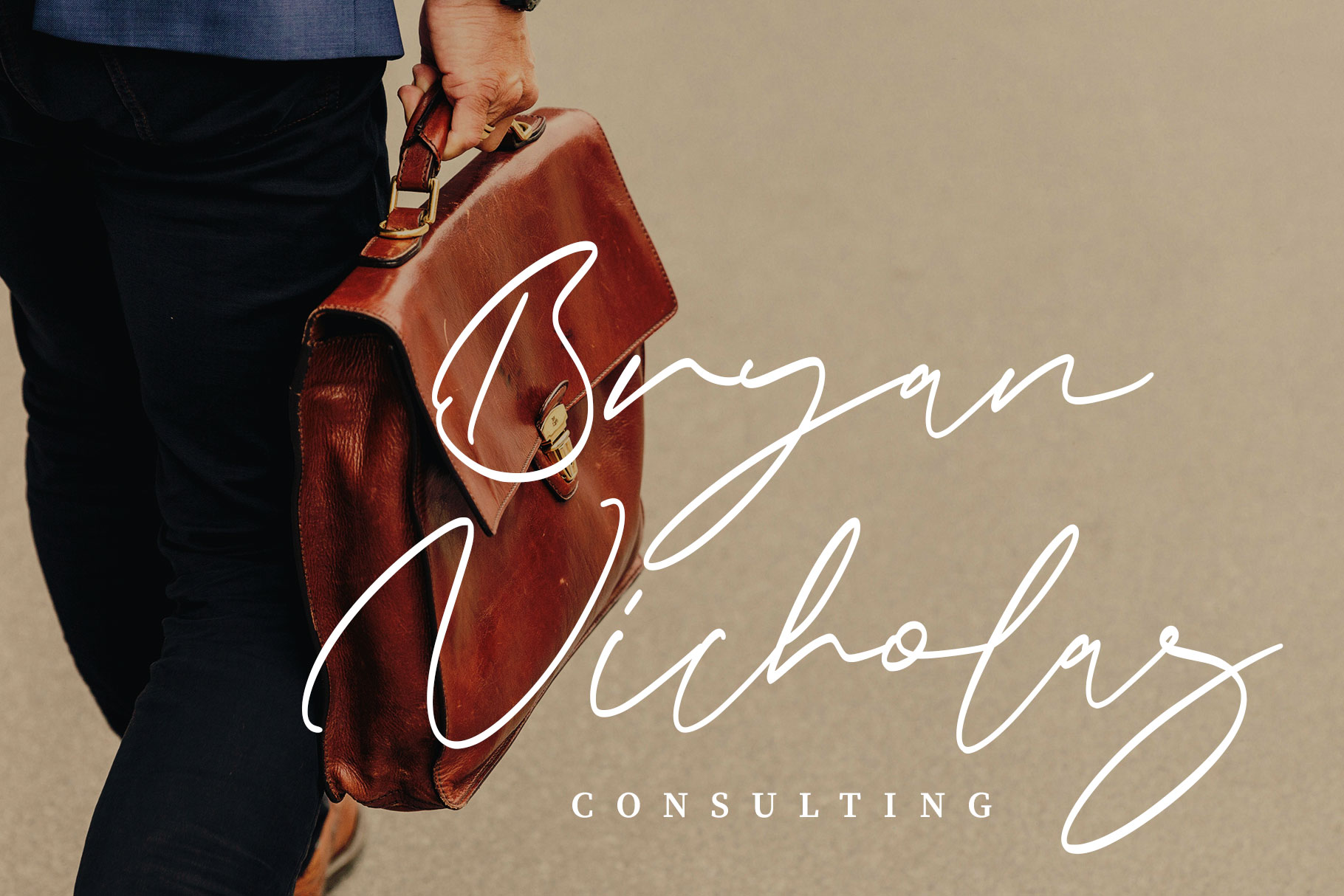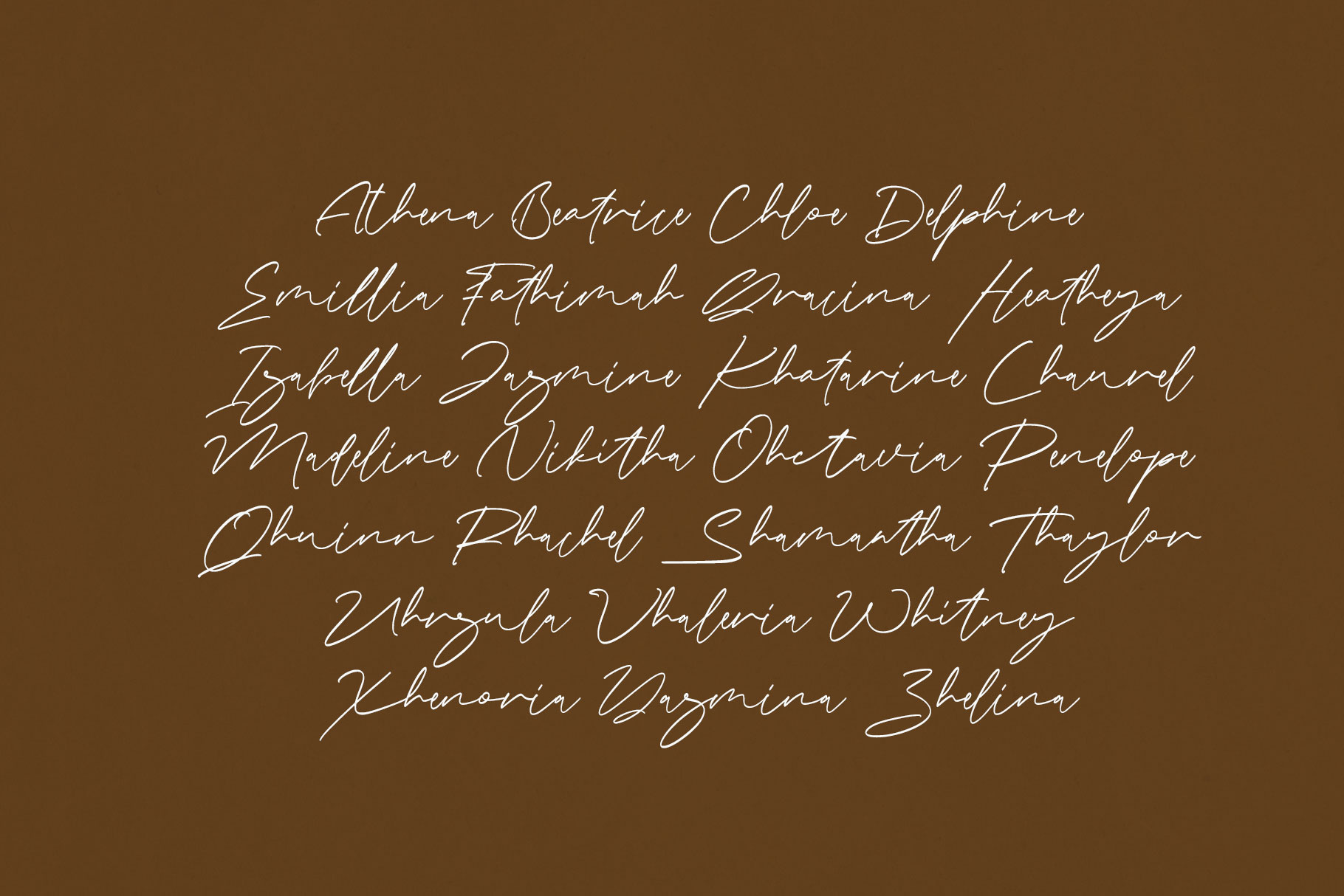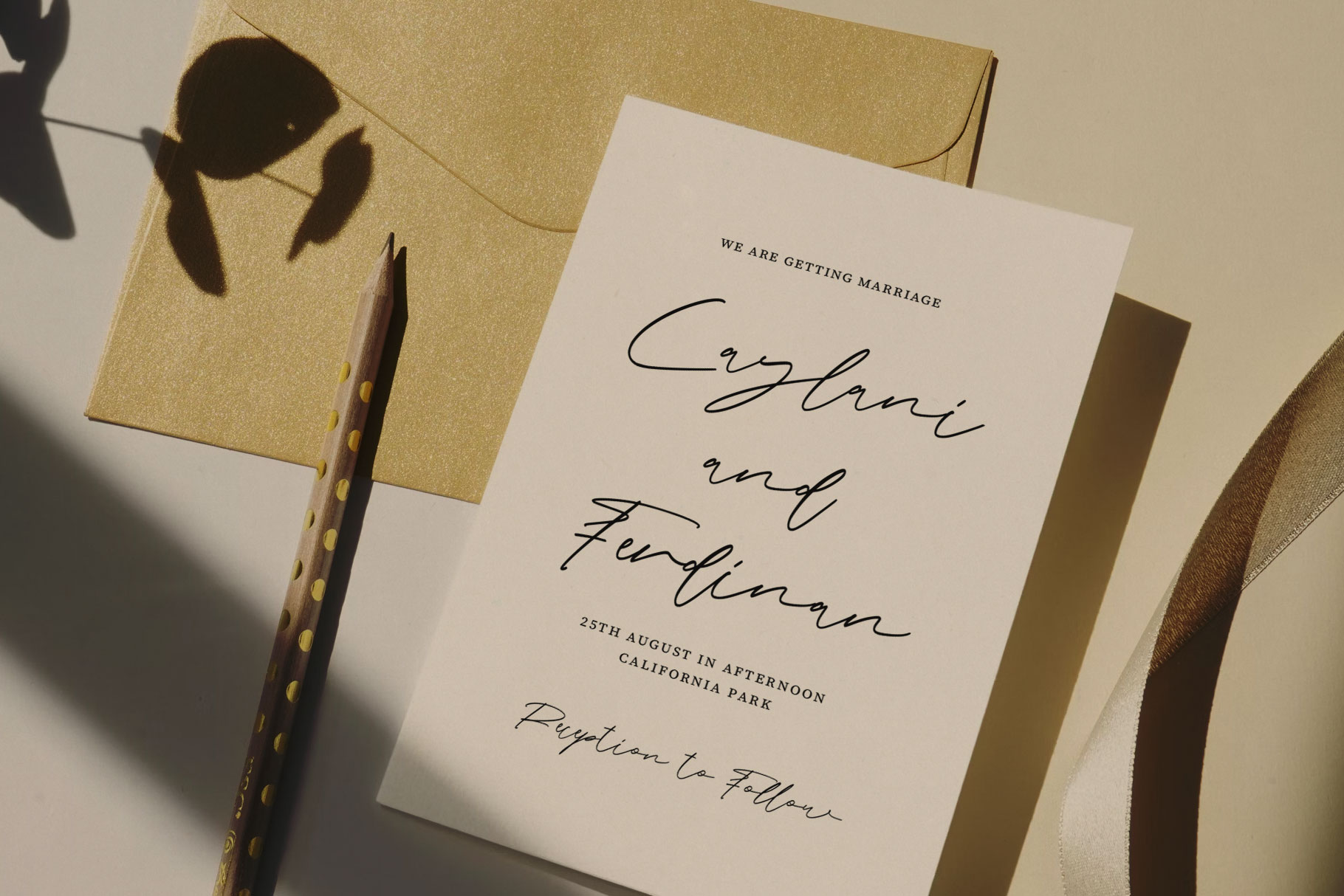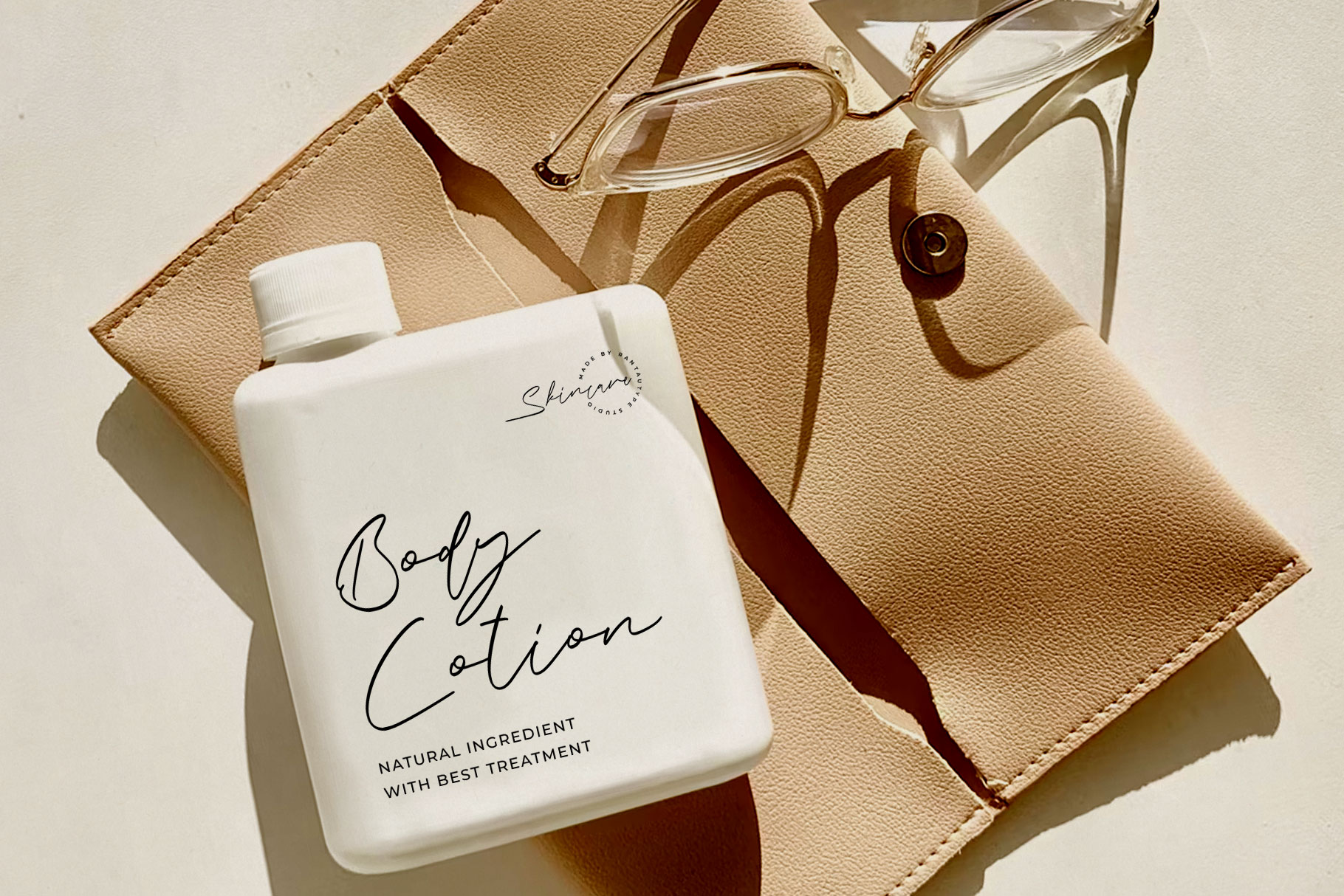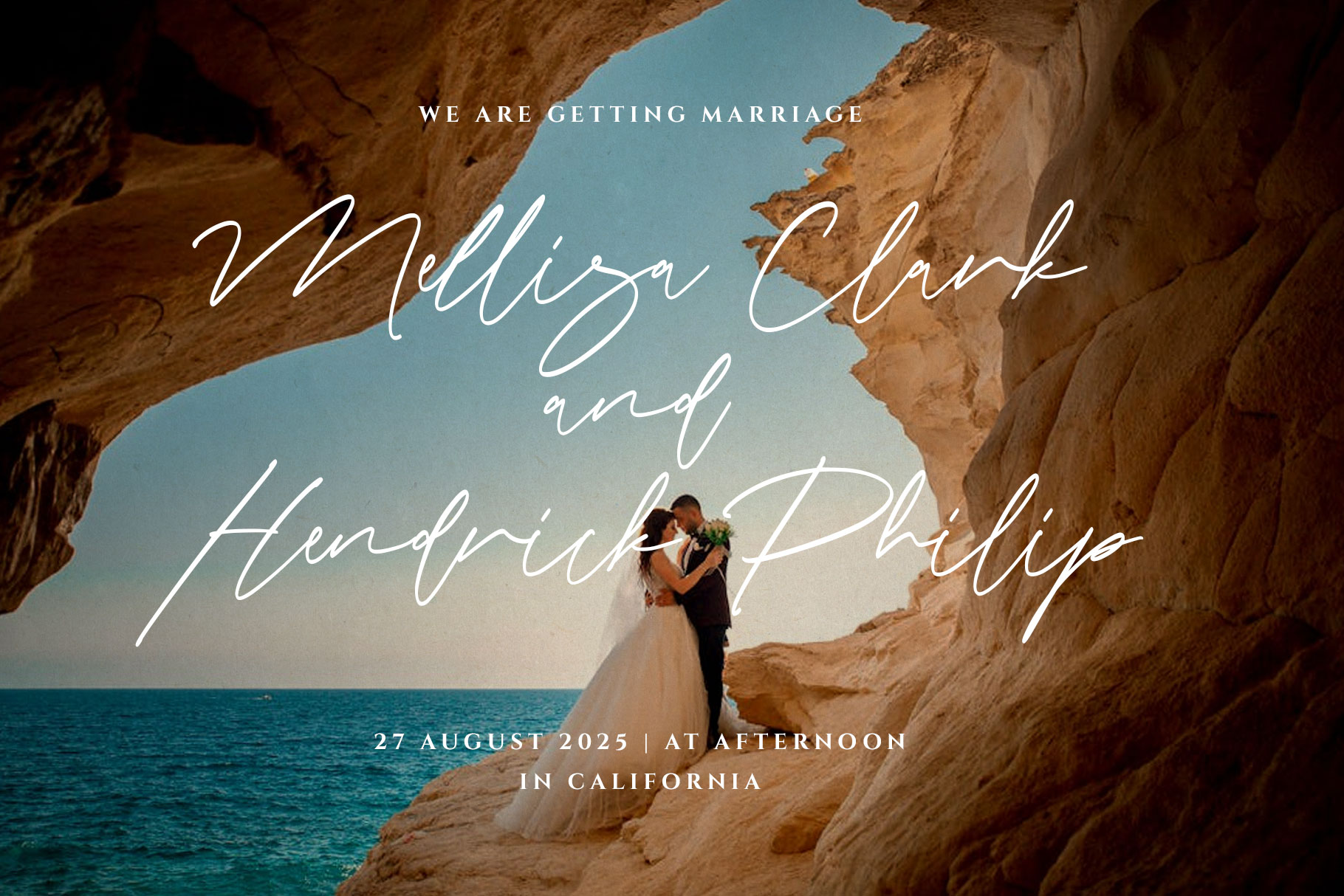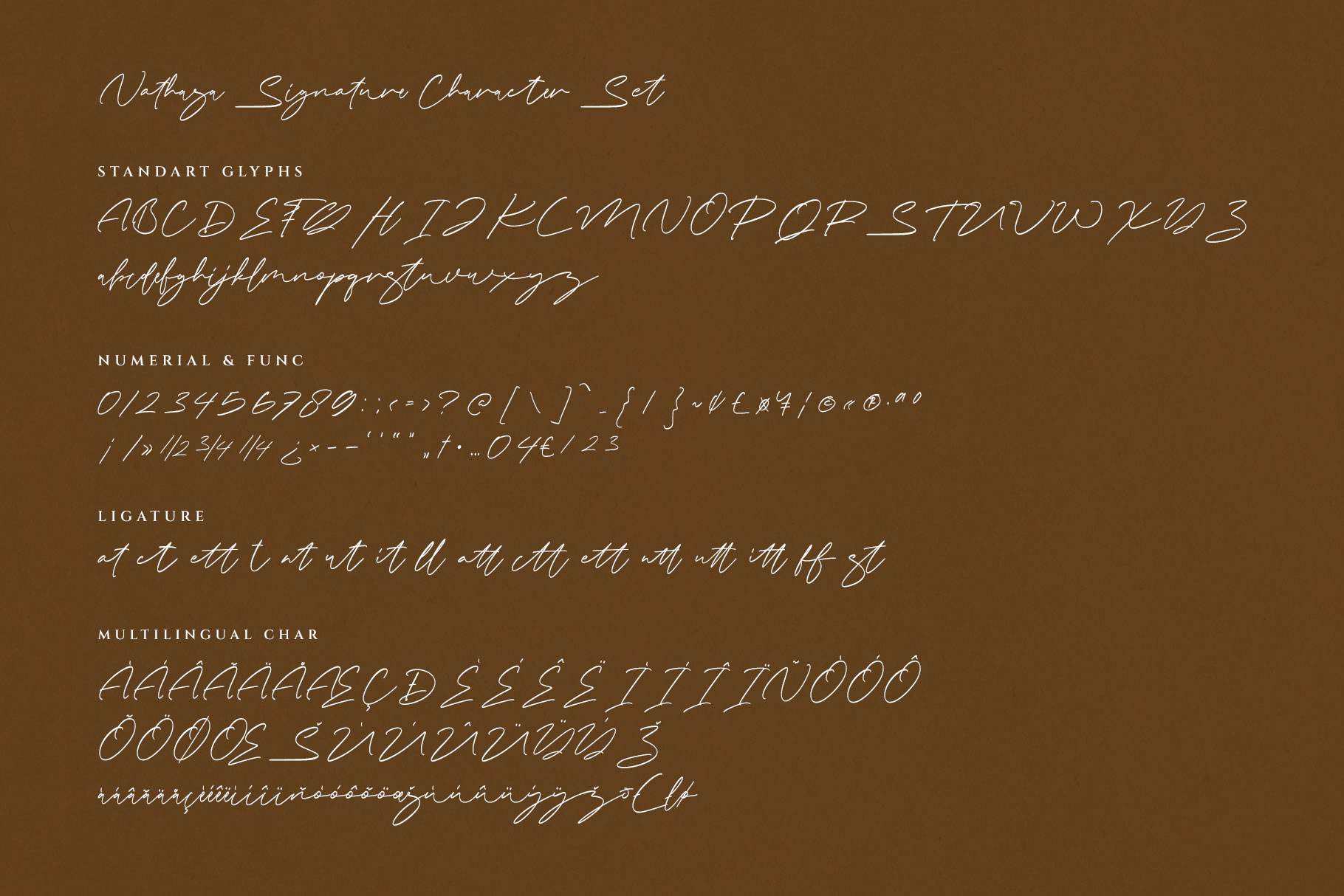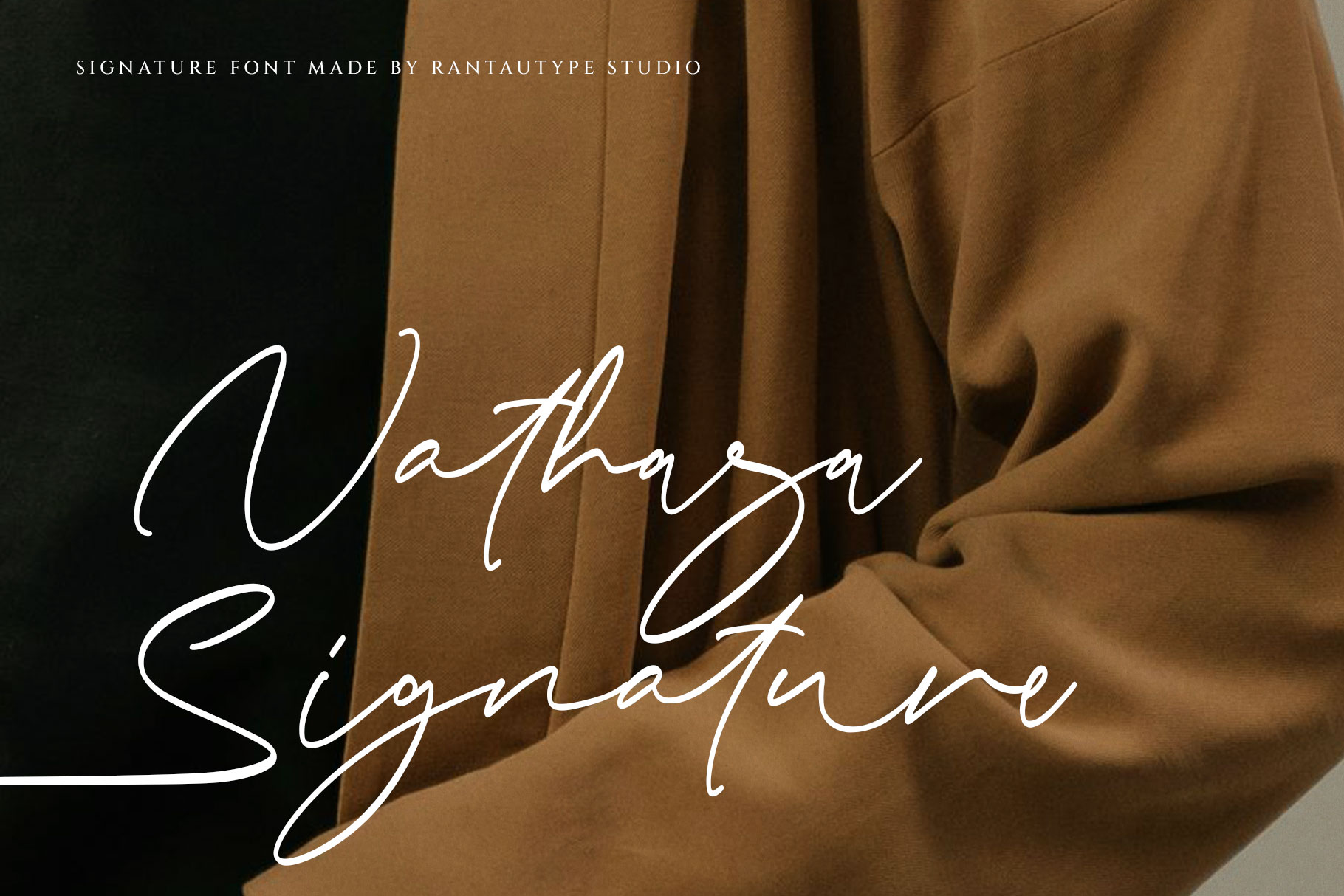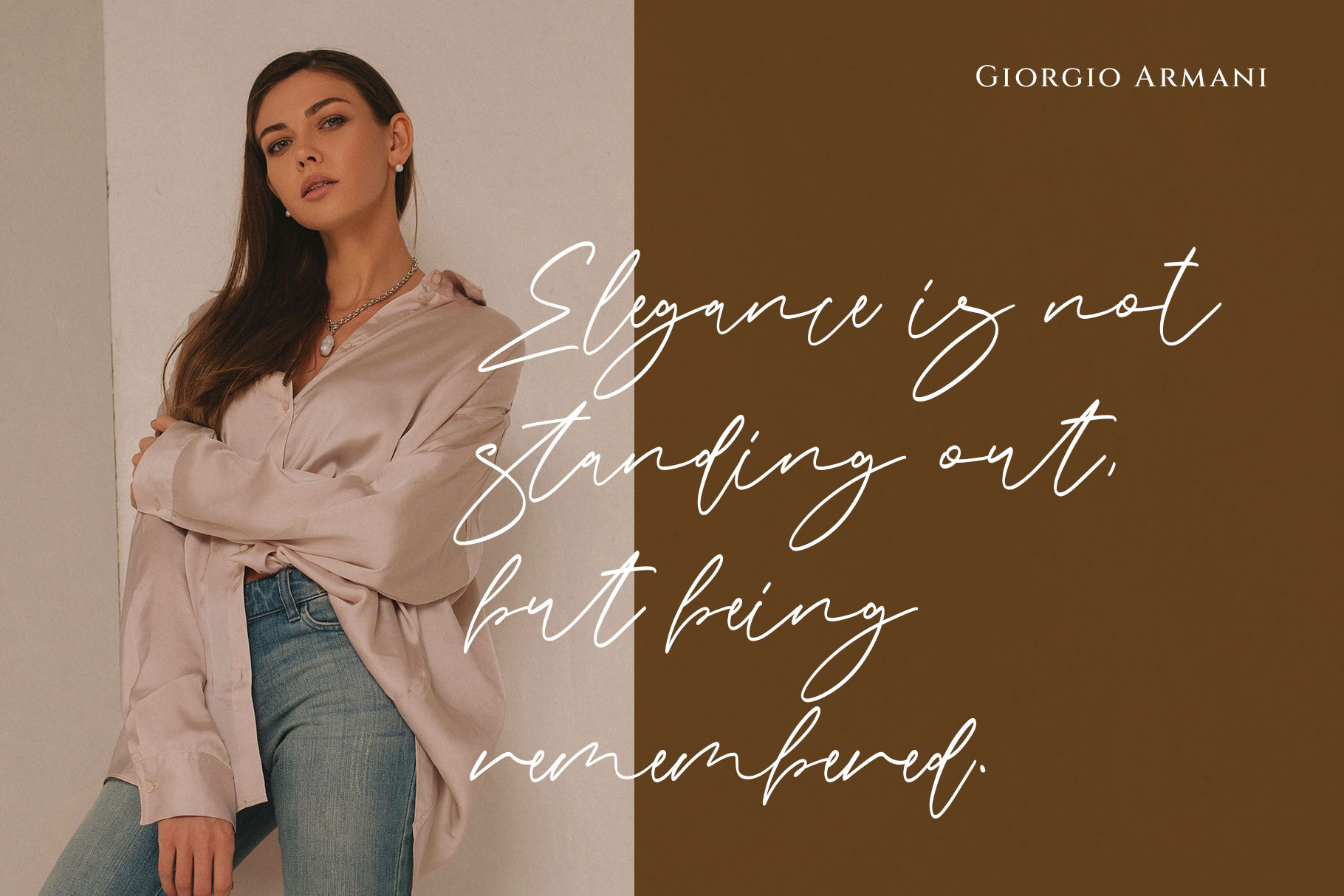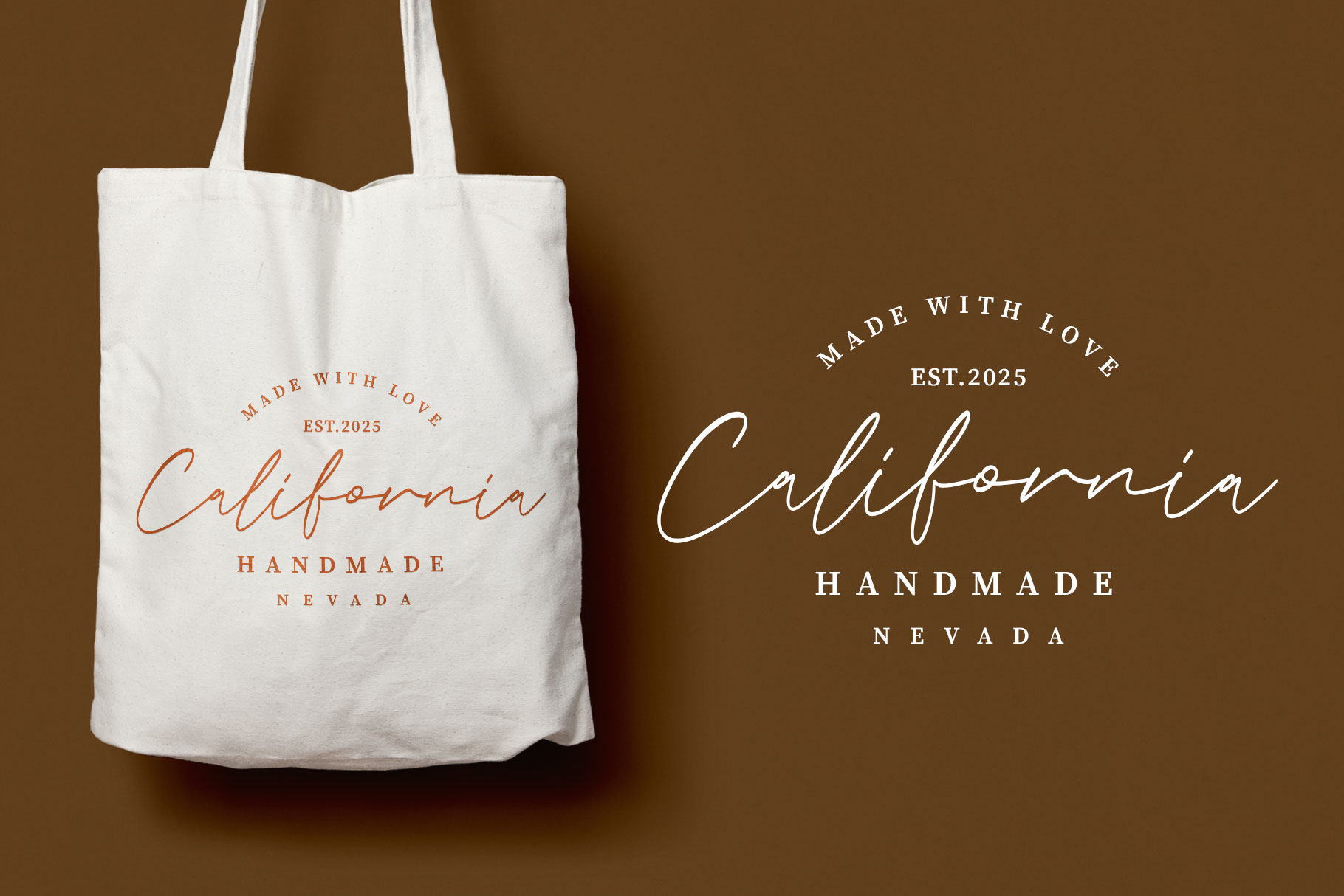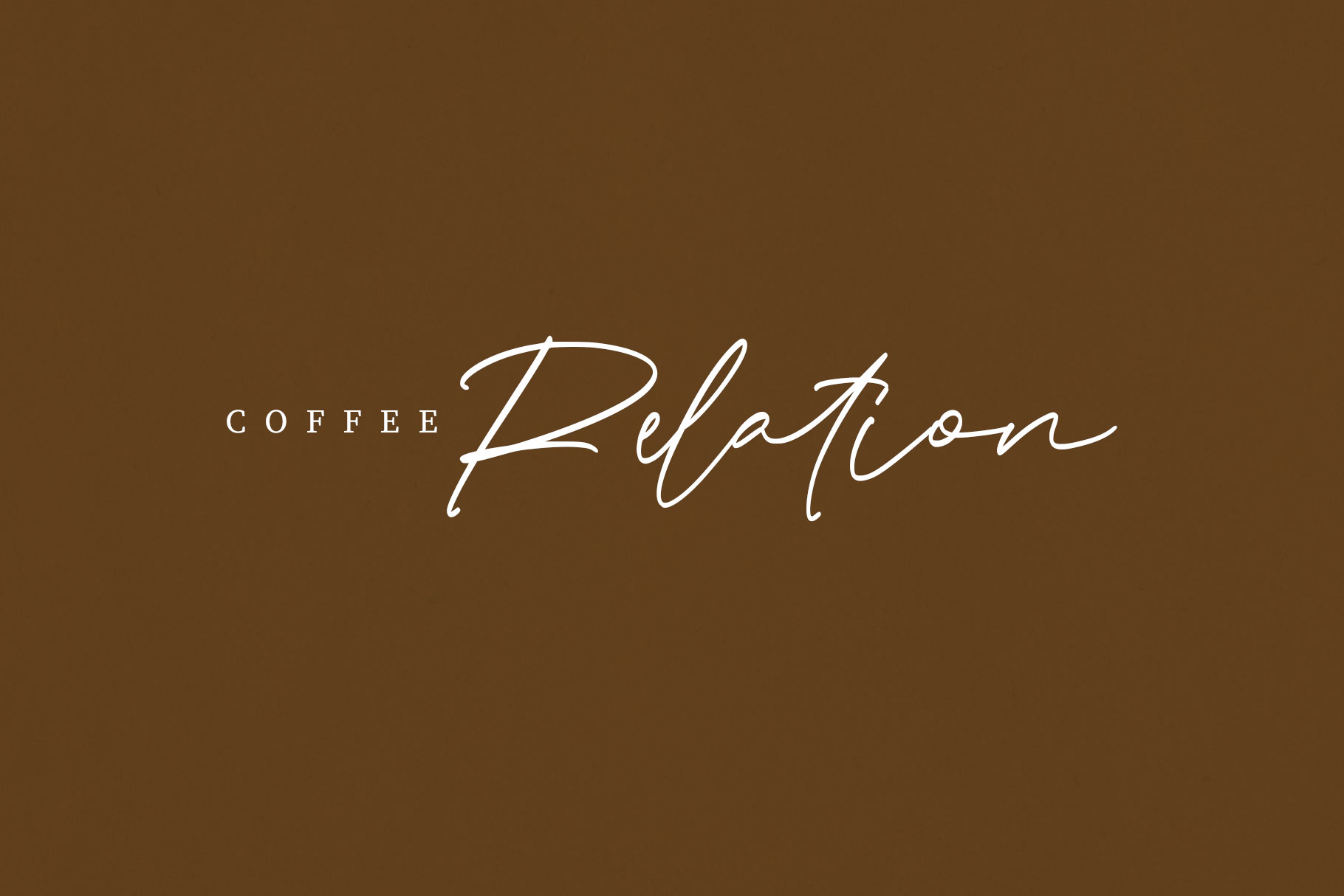
- Nathasa Signature Font
Nathasa is Signature Font with stylish and trend typeface. Nathasa is a perfectly choice for any creative endeavor, creating, modern, lifestyle design such as logotype, title, cover, branding, invitations, wedding designs, display and magazine, social media posts, advertisements, printed quotes, product packaging, corporate brand, product designs, labels, photography, watermarks, special events and any other project with handwritten feel.
- Standart Glyphs
- Numberial and Functional
- Ligature and alternate